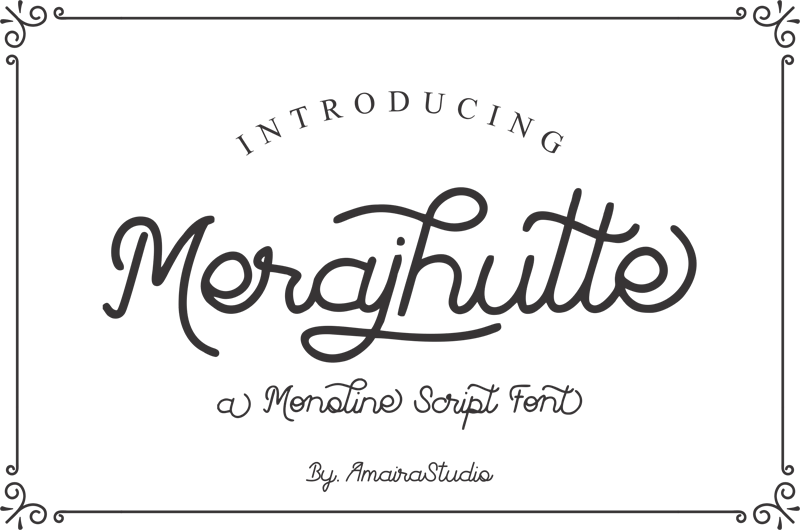
Font name: | Merajhutte |
Author: | Saeful Bahri |
Merajhutte is a beautiful mono-line font, perfect for logo design, branding, quotes, wedding invitations, clothing design, posters, and so much more! Perfect for any of your upcoming projects |